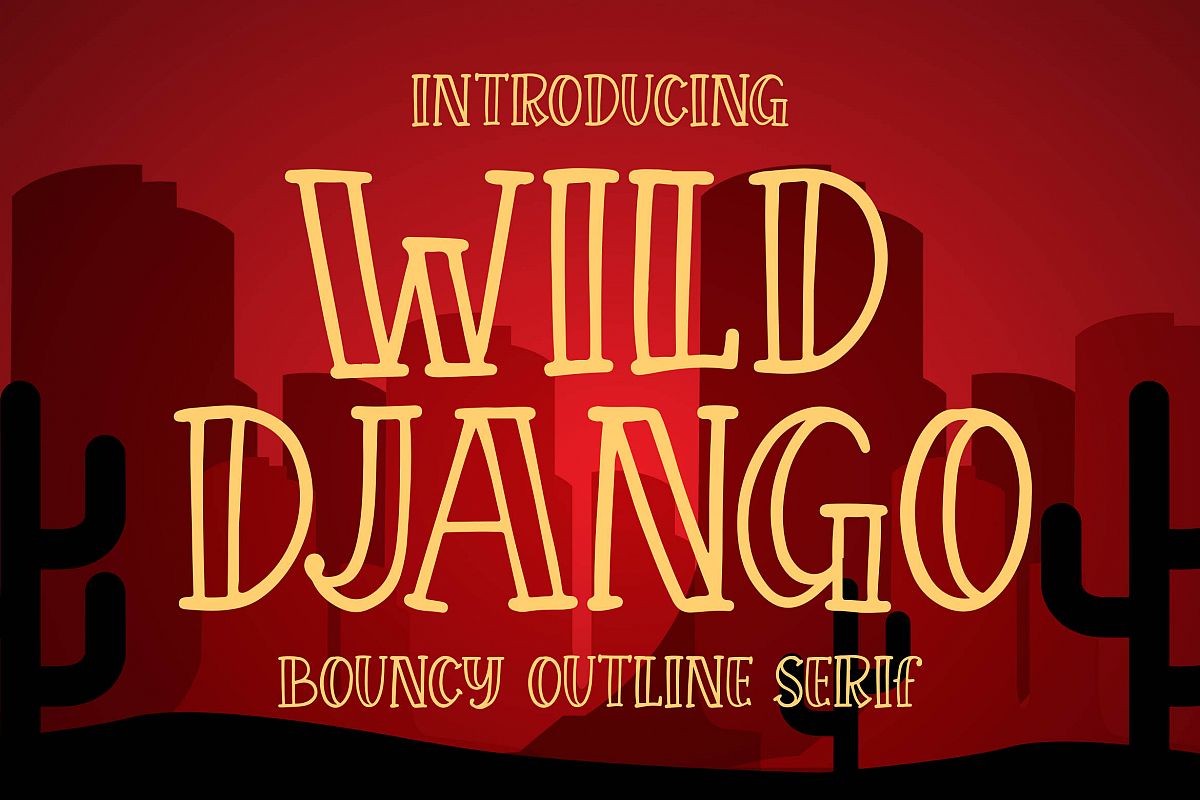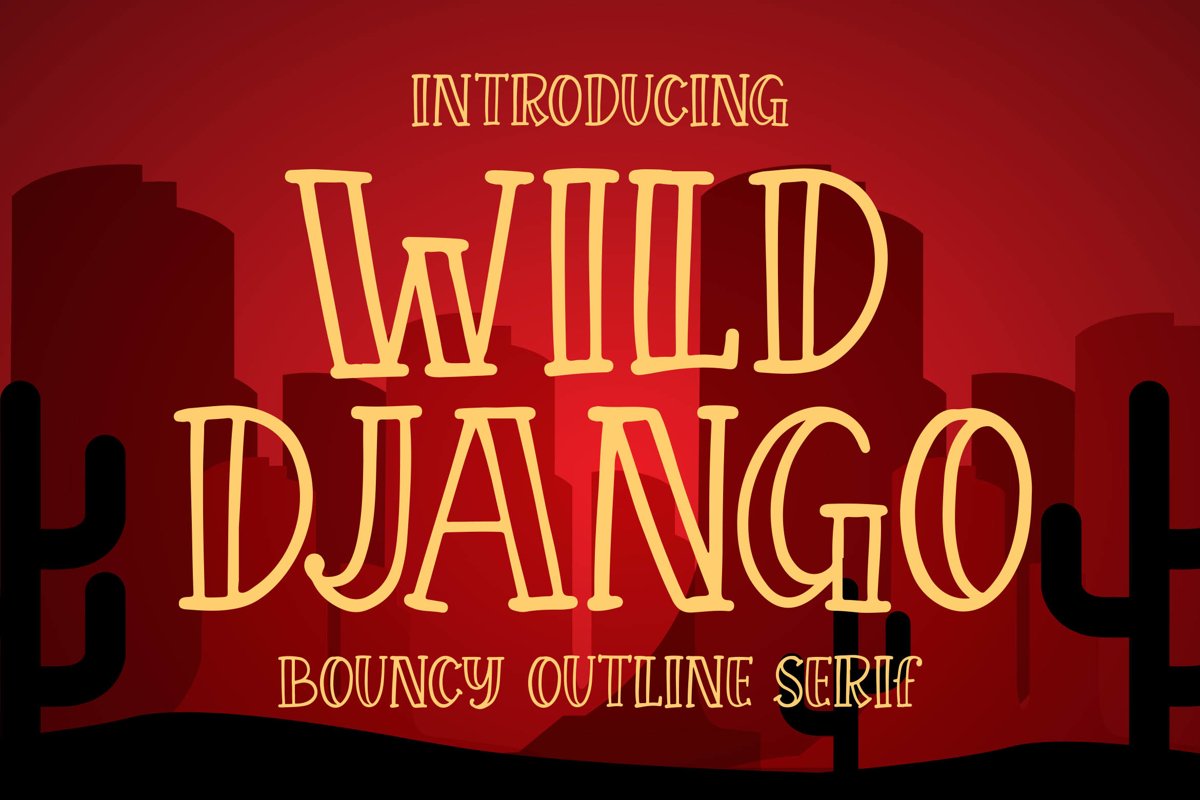
Introducing of our new product the name is Wild Django Bouncy Outline Serif. Wild Django very good for tattoo, kids poster, flyer childrenbook, cartoon, comic etcM
MULTILINGUAL ACCENT :ØÆøæ¢ÐŒœÁĂÂÀÄĄÅÃǼĆČÇĈĊĎÉĔĚÊËĖÈĘĞĜĢĠĤÍĬÎÏİÌĮĨĴĶĹĽĻĿŃŇŅÑÓŎÔÖÒŐǾÕŔŘŖŚŠŞŜȘŤŢÚŬÛÜÙŰŲŮŨẂŴẄẀÝŶŸỲŹŽŻáăâäàąåãǽćčçĉċďéĕěêëėèęğĝģġĥíîïìįĩĵķĺľļŀńʼnňņñóŏôöòőǿõŕřŗśšşŝșťţŭûüűùųůũẃŵẅẁýŷÿỳźžż
FEATURES :- Uppercase